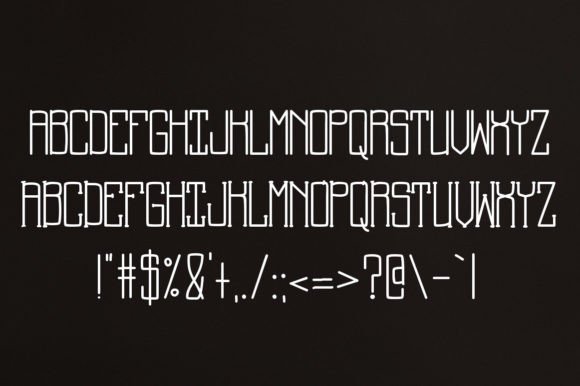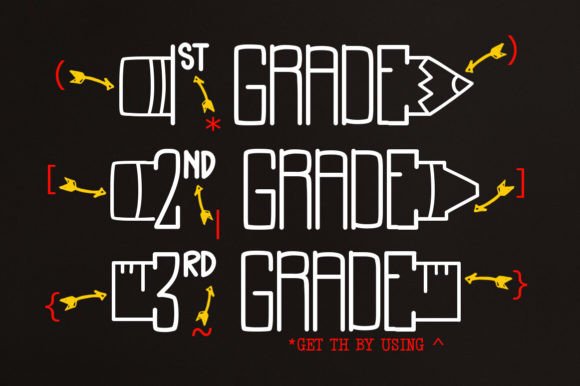
Back to School Font: Elevate Your Designs with a Modern, Retro Twist
As the new academic year approaches, designers and crafters are on the lookout for fonts that evoke a sense of nostalgia and sophistication. Say hello to Back to School, a modern, structured serif font that brings a retro twist to your designs. With its clean lines, balanced proportions, and bold, nostalgic edge, this font is perfect for a wide range of projects, from school-themed materials to sleek, futuristic layouts.
A Font that Embodies Academic Excellence
Back to School is more than just a font – it’s a design statement. Its structured serif design gives your work a stylish, academic feel that’s perfect for educational materials, such as textbooks, workbooks, and classroom decorations. The font’s clean lines and balanced proportions ensure that your designs look polished and professional, making it ideal for projects that require a touch of sophistication.
Adding a Touch of Retro Flair
One of the standout features of Back to School is its retro twist. The font’s nostalgic edge adds a touch of vintage flair to your designs, making it perfect for crafters and designers who want to create unique, eye-catching projects. Whether you’re creating posters, flyers, or social media graphics, Back to School brings a bold, nostalgic feel that’s sure to capture your audience’s attention.
The versatility of Back to School is one of its greatest strengths. This font can be used for a wide range of projects, including:
- Educational materials: textbooks, workbooks, classroom decorations, and more
- School-themed projects: posters, flyers, social media graphics, and more
- Sleek, futuristic layouts: websites, magazines, and more
- Crafting projects: papercrafting, scrapbooking, and more
Key Features of Back to School Font
So, what makes Back to School font so special? Here are some of its key features:
- Modern, structured serif design
- Clean lines and balanced proportions
- Retro twist with a nostalgic edge
- Perfect for academic and educational materials
- Versatile and suitable for a wide range of projects
Why Choose Back to School Font?
With so many fonts available, why choose Back to School? Here are just a few reasons:
- Unique and eye-catching: Back to School font is sure to capture your audience’s attention with its bold, nostalgic edge.
- Versatile: This font can be used for a wide range of projects, from educational materials to sleek, futuristic layouts.
- Easy to read: The clean lines and balanced proportions of Back to School font make it easy to read, even at small sizes.
Tips for Using Back to School Font
Here are a few tips for getting the most out of Back to School font:
- Experiment with different sizes: Back to School font looks great at a range of sizes, from small headings to large display text.
- Pair with other fonts: Try pairing Back to School with other fonts to create a unique and eye-catching design.
- Use for headlines and titles: The bold, nostalgic edge of Back to School font makes it perfect for headlines and titles.
Back to School font is a versatile, modern serif font with a retro twist that’s perfect for designers and crafters. With its clean lines, balanced proportions, and bold, nostalgic edge, this font is sure to elevate your designs and capture your audience’s attention. Whether you’re creating educational materials, school-themed projects, or sleek, futuristic layouts, Back to School font is the perfect choice.